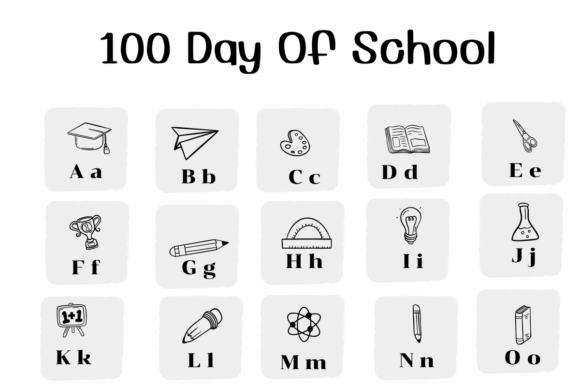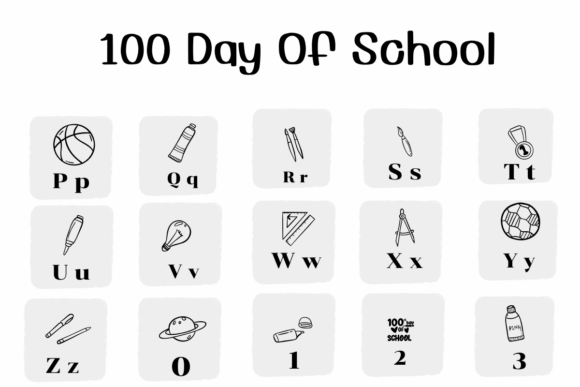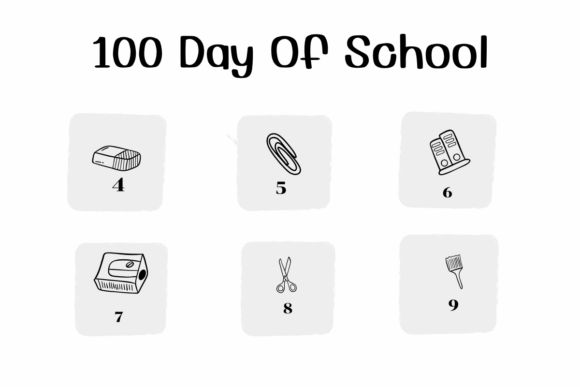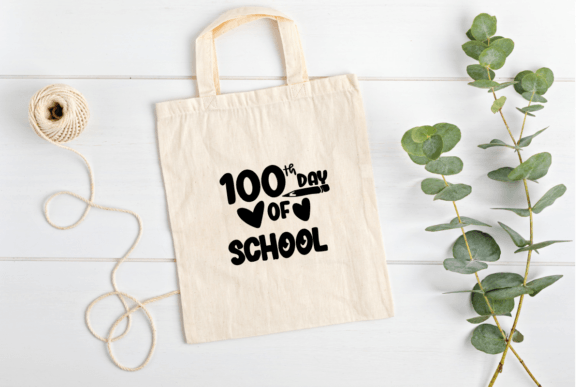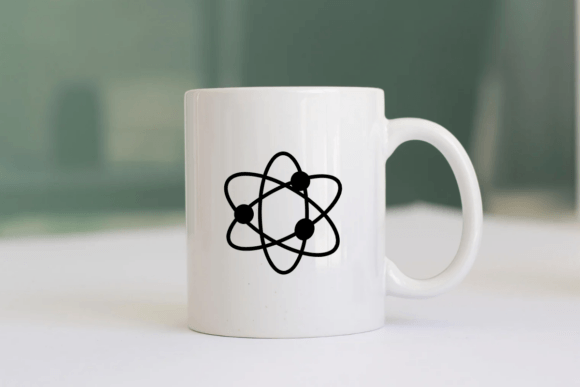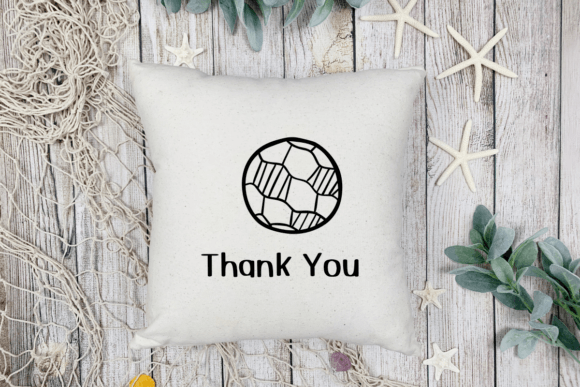
Unlock Endless Creativity with the 100 Days of School Dingbats Font
The 100th day of school is a milestone event that deserves a celebration. To help you create engaging and educational materials, we’re excited to introduce the 100 Days of School Dingbats Font. This delightful collection of hand-drawn school-themed icons is perfect for teachers, students, and creatives looking to add a touch of whimsy to their projects.
What is the 100 Days of School Dingbats Font?
The 100 Days of School Dingbats Font is a unique and playful font that features a range of school-themed icons, including books, pencils, rulers, globes, lightbulbs, and many more. Each icon is carefully hand-drawn to ensure a charming and childlike feel that’s perfect for educational materials, classroom decorations, posters, certificates, and craft projects.
Key Features of the 100 Days of School Dingbats Font
- Hand-drawn icons: Each icon is carefully crafted to ensure a unique and playful feel.
- School-themed designs: The font features a range of school-themed icons, including books, pencils, rulers, and more.
- Versatile design: The font is perfect for creating a variety of materials, from educational resources to classroom decorations.
Ideas for Using the 100 Days of School Dingbats Font
The 100 Days of School Dingbats Font is incredibly versatile, and can be used in a variety of ways to add a touch of whimsy to your projects. Here are a few ideas to get you started:
- Educational materials: Create engaging worksheets, activity sheets, and educational resources that are perfect for the 100th day of school.
- Classroom decorations: Use the font to create fun and colorful classroom decorations, such as banners, posters, and bulletin board displays.
- Posters and certificates: Design eye-catching posters and certificates to commemorate the 100th day of school.
- Craft projects: Use the font to create fun and educational craft projects, such as coloring pages, mazes, and word searches.
Benefits for Teachers and Students
The 100 Days of School Dingbats Font offers a range of benefits for teachers and students alike. Here are just a few:
- Engaging learning materials: The font can be used to create engaging and interactive learning materials that make learning fun.
- Personalized projects: Students can use the font to create personalized projects and crafts that showcase their creativity.
- Time-saving: The font saves teachers time and effort, allowing them to focus on what matters most – teaching.
Tips for Getting the Most Out of the 100 Days of School Dingbats Font
To get the most out of the 100 Days of School Dingbats Font, here are a few tips:
- Experiment with different colors: Use a range of colors to bring your projects to life.
- Mix and match icons: Combine different icons to create unique and interesting designs.
- Use with other fonts: Pair the 100 Days of School Dingbats Font with other fonts to create visually appealing designs.
The 100 Days of School Dingbats Font is a must-have for teachers, students, and creatives looking to add a touch of whimsy to their projects. With its charming and versatile design, this font is perfect for creating engaging educational materials, classroom decorations, posters, certificates, and craft projects. Download the 100 Days of School Dingbats Font today and unlock endless creativity!